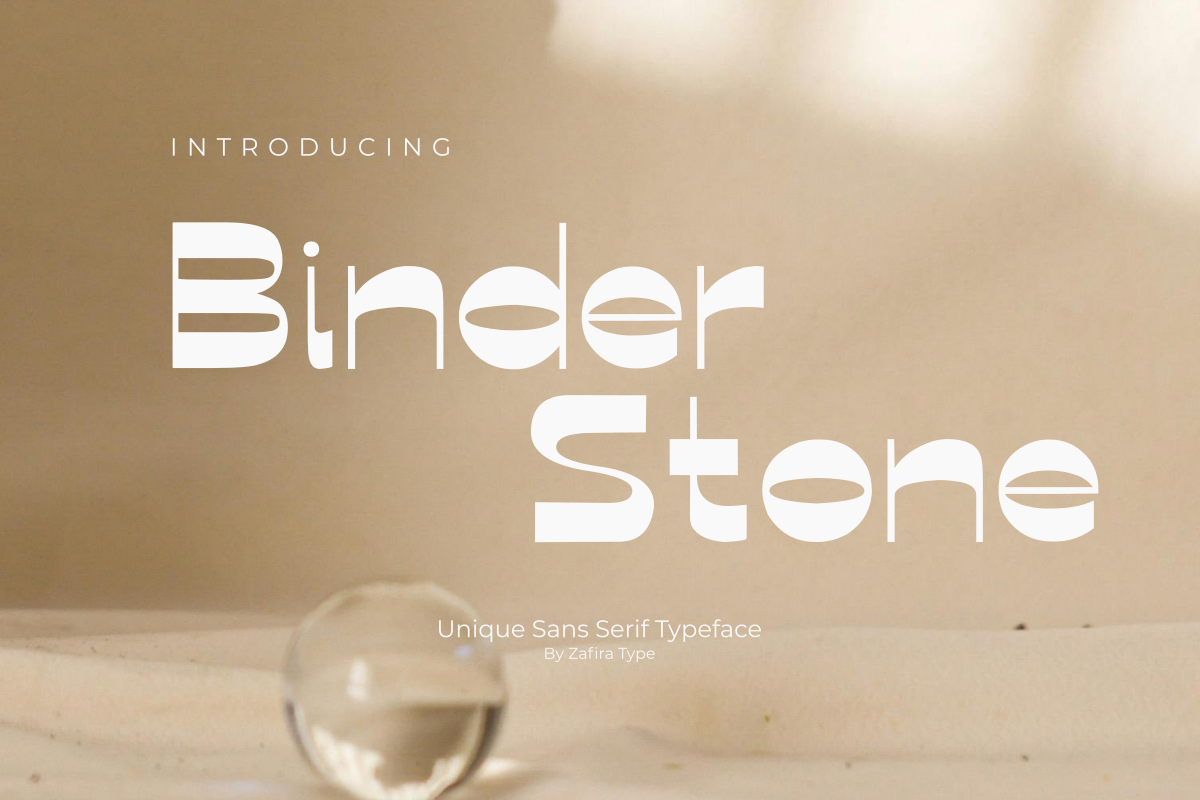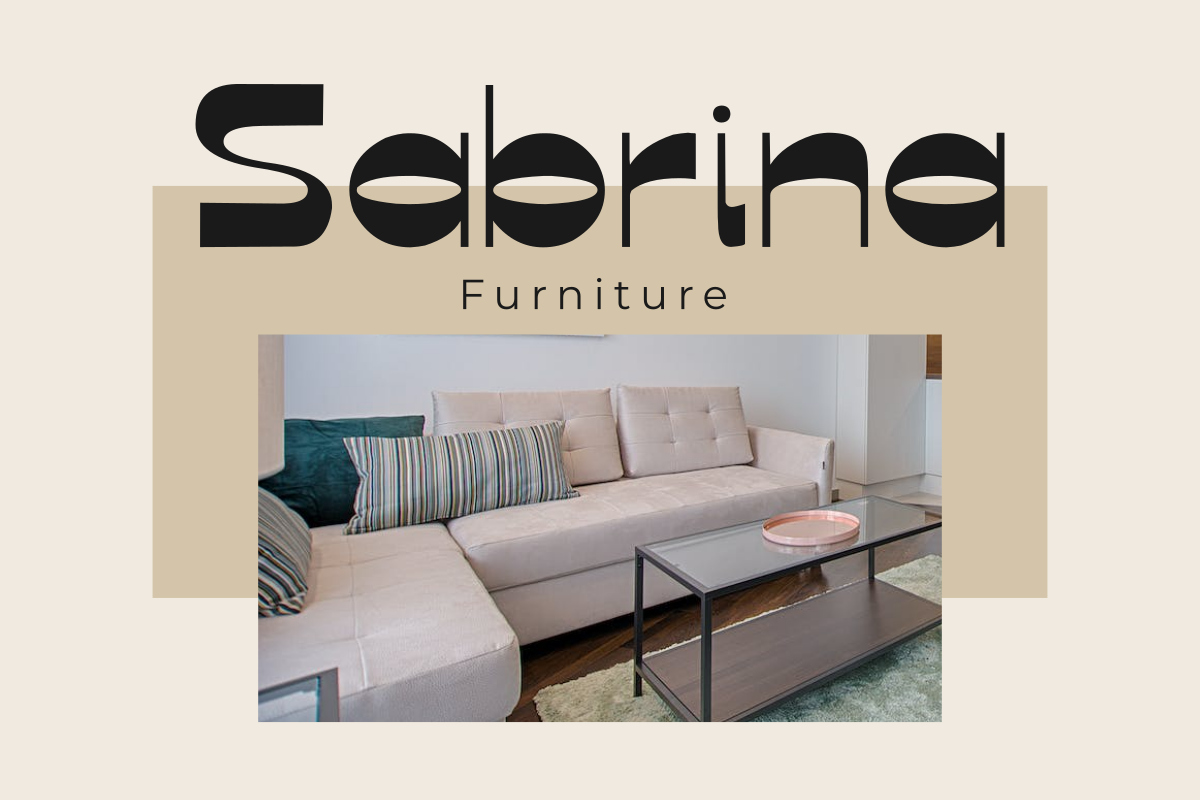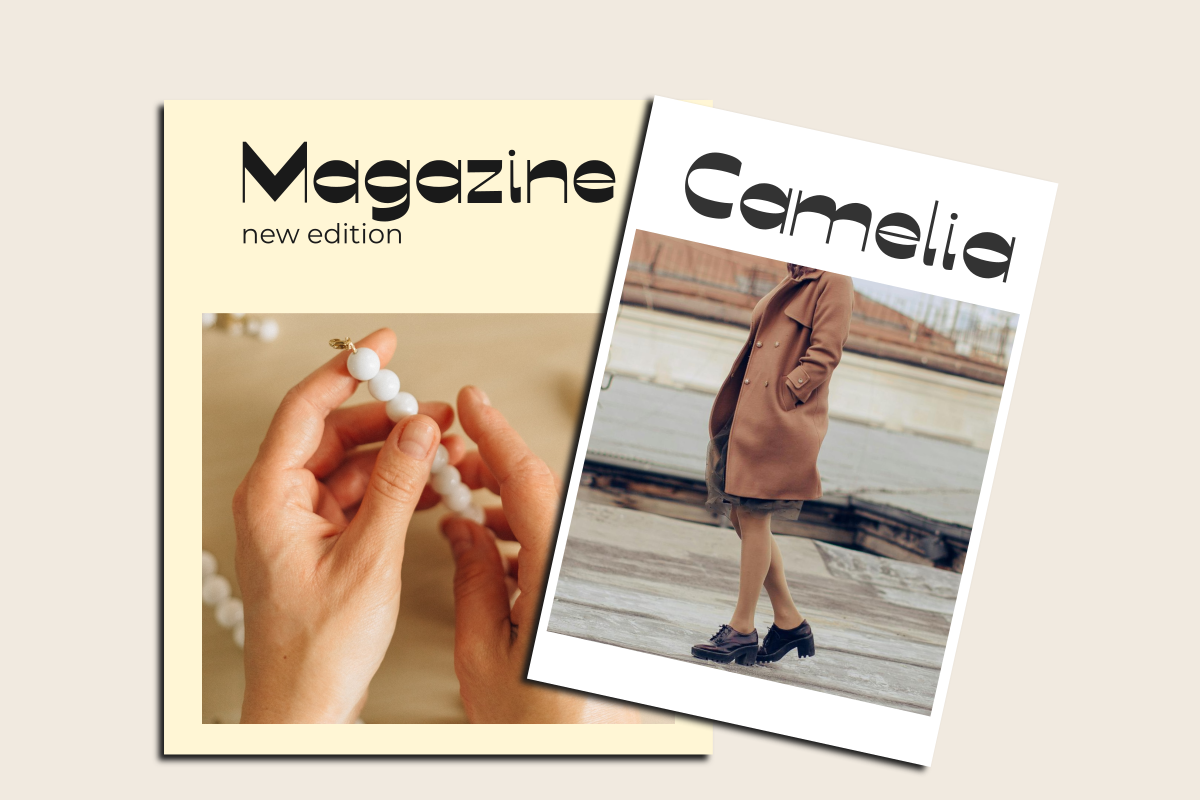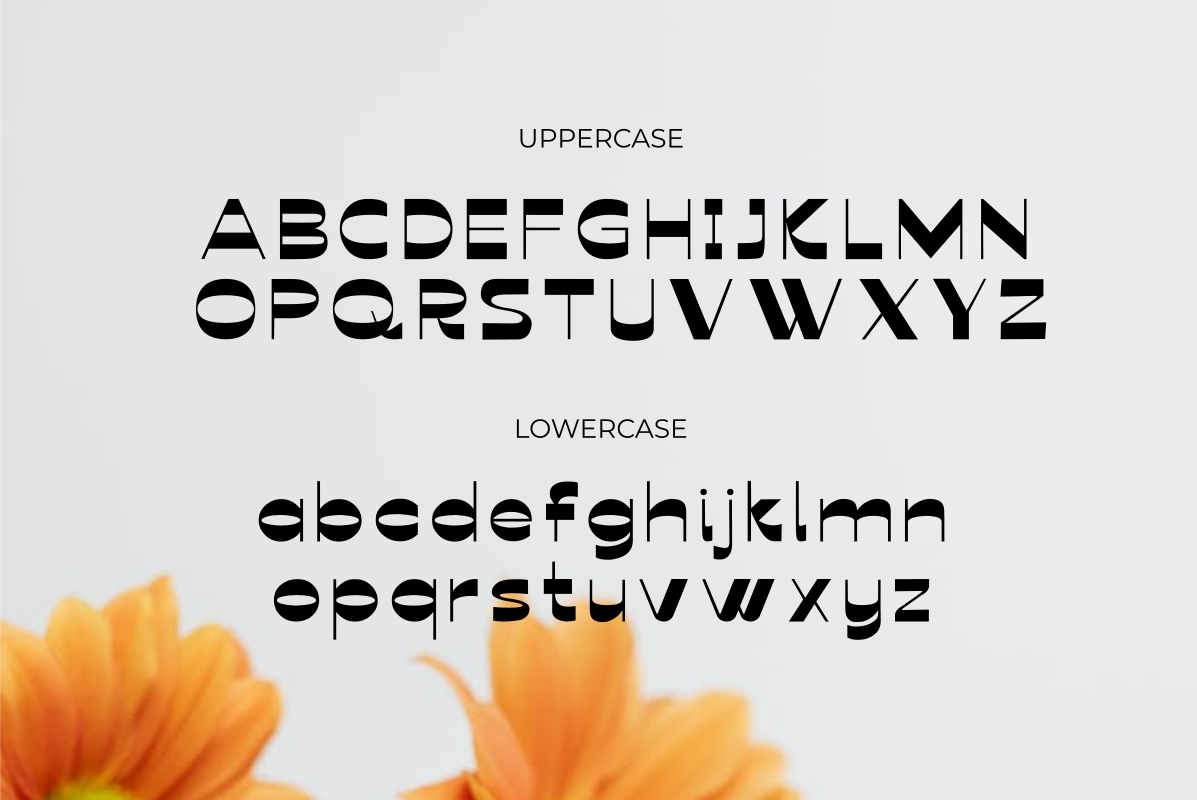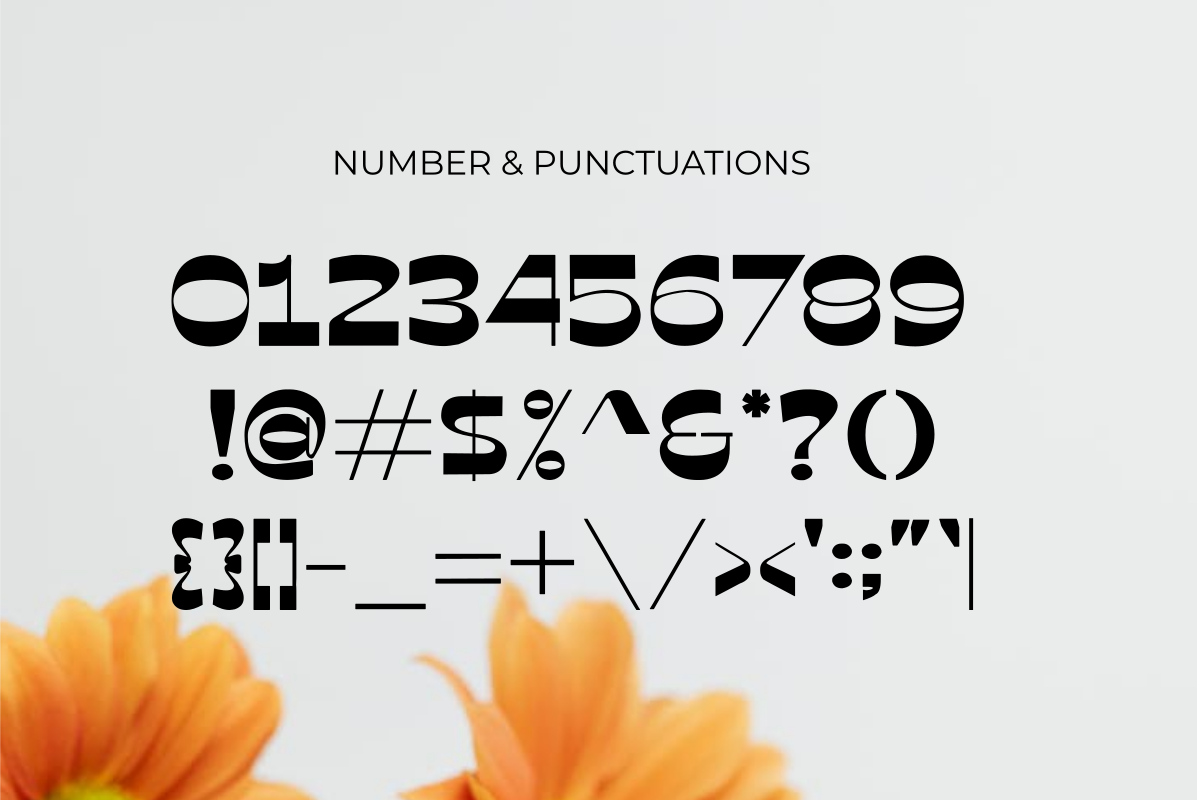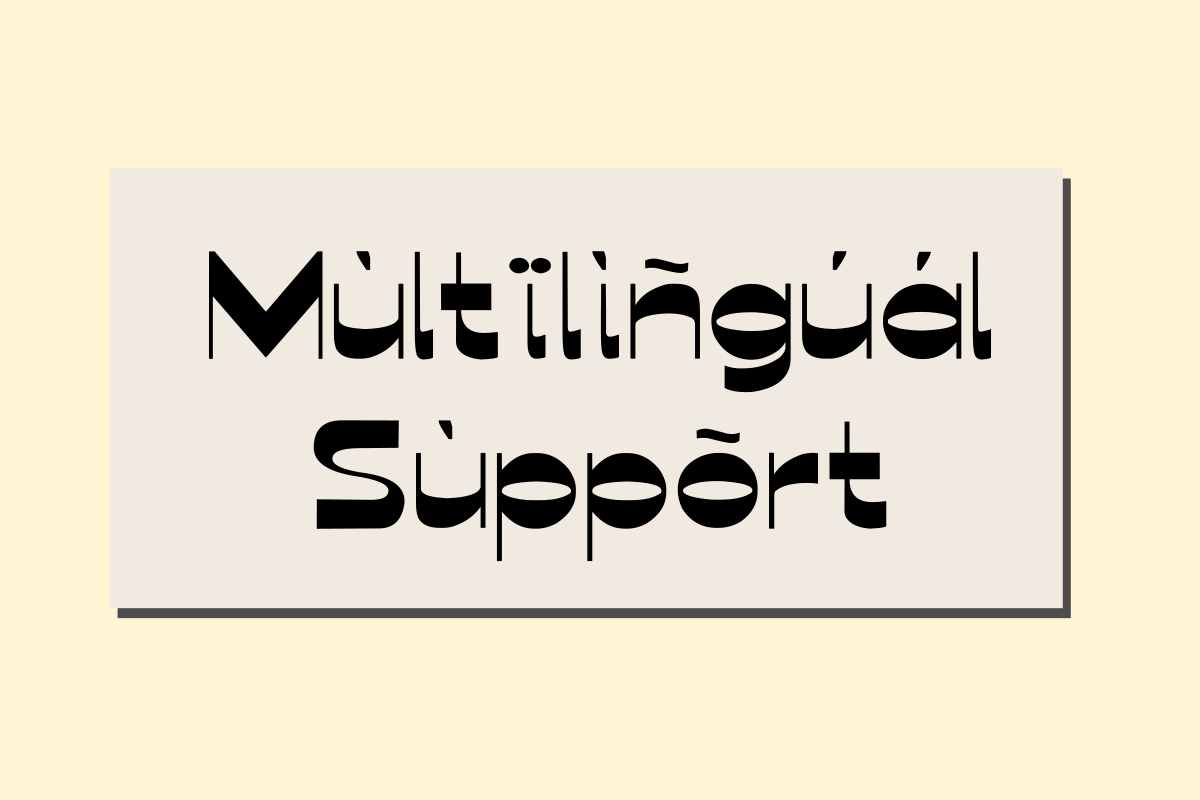
Binder Stone
Binder Stone is a bold modern display font with sans serif style. It’s a modern and classic font with a unique and different look. It is perfect for editorial projects, logo designs, web font, clothing branding, product packaging, magazine headers, or simply as a stylish text overlay to any background image.